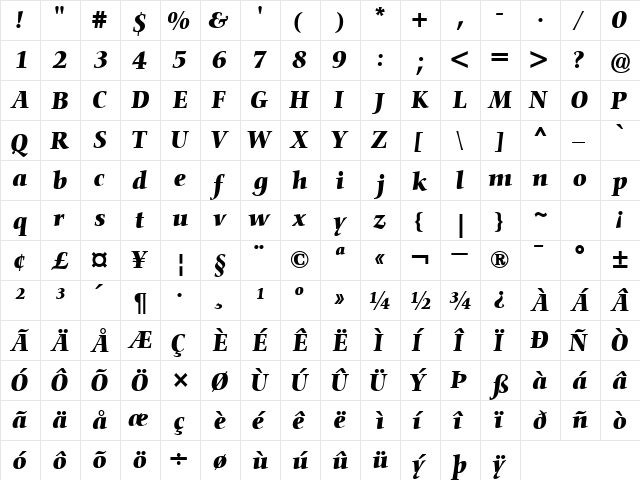
ConquistaSSK BoldItalic
Design Context for ConquistaSSK Typeface
ConquistaSSK is a composed and adaptable typeface that performs quietly and consistently across a wide range of design contexts. The dynamic lean of this cut emphasises speed and emphasis in any layout. The heavy weight commands attention and anchors typographic hierarchies.
Pro Tip: Try ConquistaSSK for annotation and caption copy alongside an upright companion — the contrast in angle creates a dynamic but ordered typographic system.